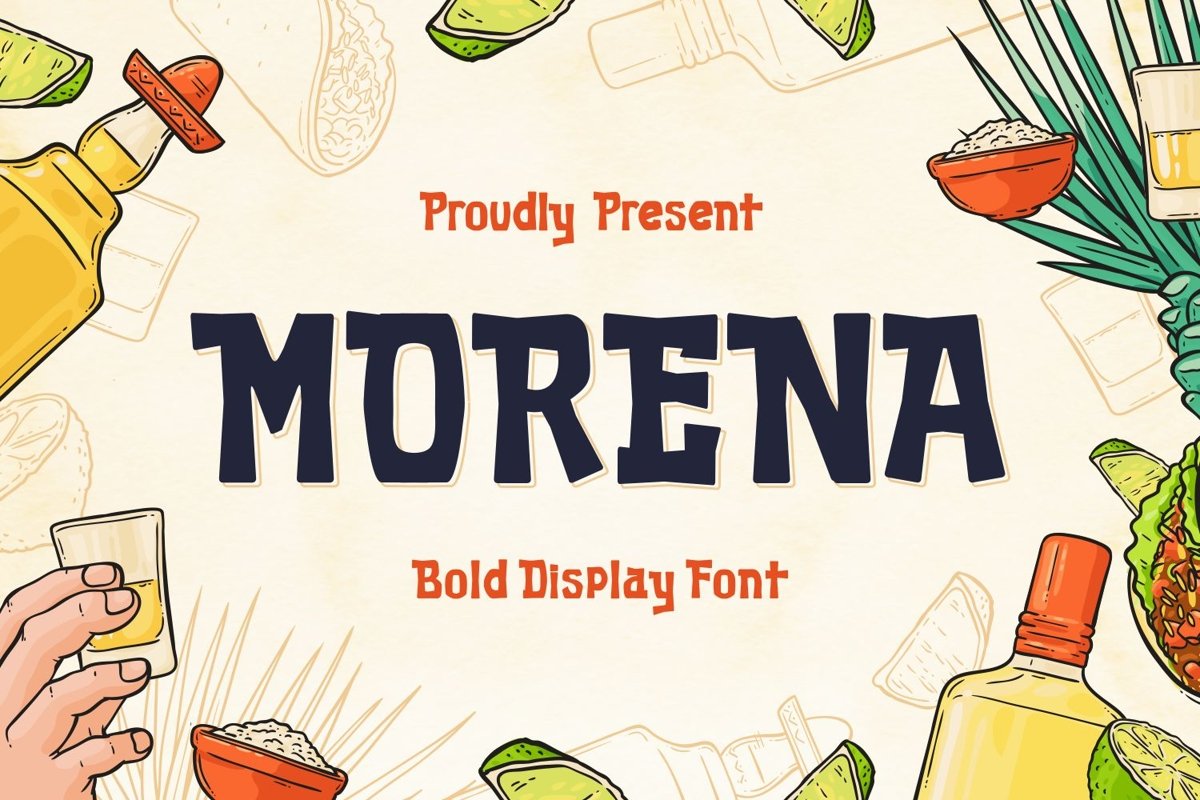
Morena is a unique bold display typeface come with food themes. It matches applies in some designs such as the logotype, brand, packaging, quotes, poster, t-shirt, card invitation and more custom design. The features uppercase, lowercase, numeral, punctuation & symbol, multilingual support, PUA encoded (fully accessible without additional design software).